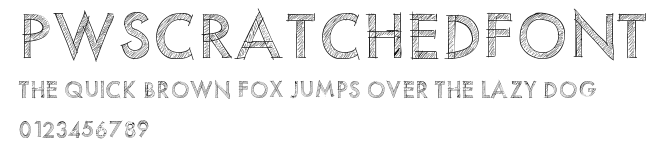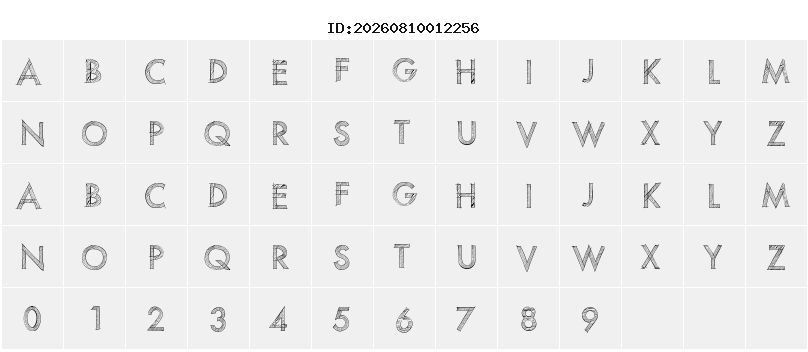
About PWScratchedfont.ttf
PWScratchedfont.ttf is a modern, elegant sans-serif font designed for ultimate readability and visual harmony. Perfect for branding, headlines, web design, and print materials.